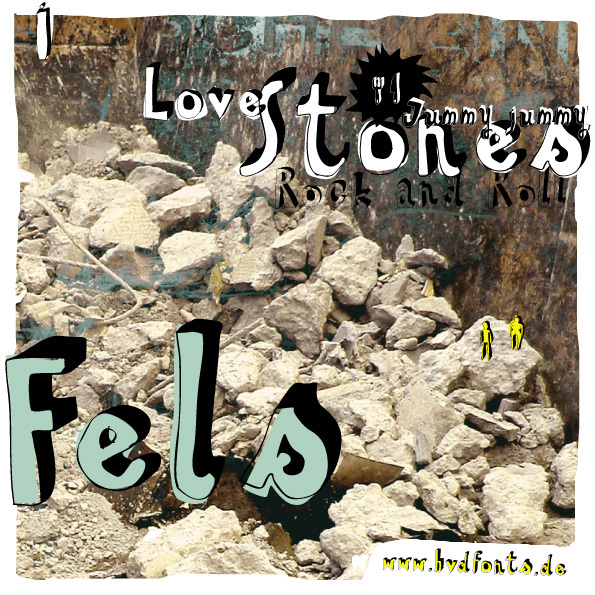
HVDSteinzeit by Hannes von Döhren is a free outlined cartoon display font with a hand-cut, prehistoric look. Its uneven letters mix blunt angles, pinched curves, and shifting stroke widths. Dark offset patches make the outlines look roughly carved.
As an illustrated label, it can turn game packaging into part of the artwork. That raw humor also suits children's posters and museum activity sheets. For branding, it gives dinosaur toys or stone-age attractions a handmade emblem.